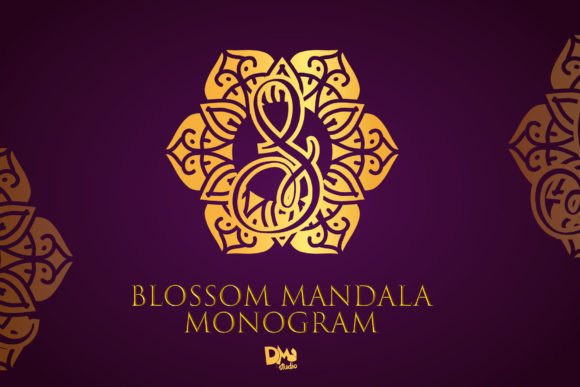
The Blossom Mandala Monogram Font: A Designer’s Dream Come True
This beautiful decorative font, inspired by the elegance of mandala art, instantly elevated my design game. With its intricate details and sophisticated style, it added a touch of luxury to my project. In this article, I’ll share my experience with the Blossom Mandala Monogram Font, its features, and how to make the most of it in your designs.
• ✨ Elegant and unique design inspired by mandala art
• ✅ Highly versatile and suitable for various design projects, from logos to crafts
• 🎨 Beautifully crafted with attention to detail, making it perfect for high-end designs
While the Blossom Mandala Monogram Font is an amazing addition to any design project, there are a few things to keep in mind:
• ⚠️ Some characters may require manual kerning for optimal spacing
• 🤔 Limited availability of certain special characters, but suitable alternatives are provided
The Blossom Mandala Monogram Font was created with the intention of capturing the elegance and beauty of mandala art. The designer, inspired by the intricate patterns and details of mandalas, aimed to create a font that would bring a touch of luxury and sophistication to any design project.
What is the Blossom Mandala Monogram Font inspired by? The font is inspired by the elegance and beauty of mandala art.
Does the font include OpenType features? Yes, the font includes OpenType features, such as stylistic alternates and glyphs.